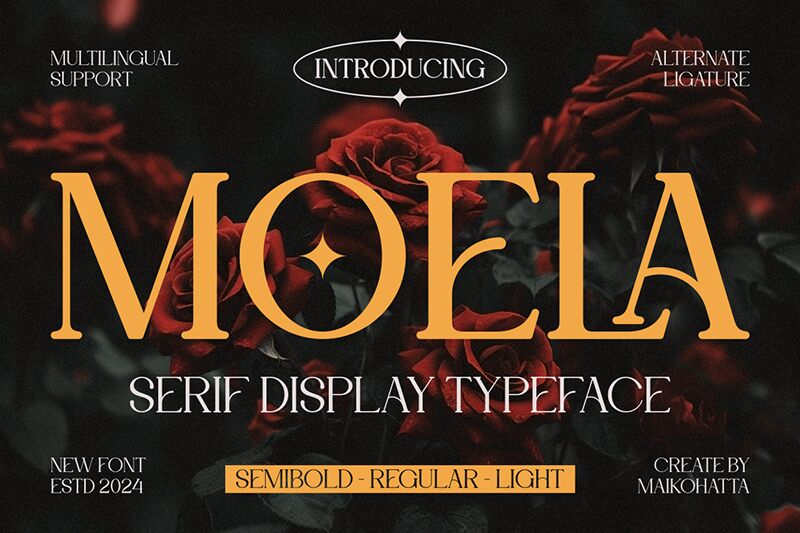
MOELA
Moela font is a beautiful serif font from Gilang Ternadho, one that brings a classic feel all too commanding for its audience. It possesses an elegant, vintage-inspired style with an aesthetic detailing and a refined tone for its letters. Its formal nature never goes out of fashion as Moela holds the uniqueness it’s known for.
Moela is a free serif font that looks exceptional on brochures or magazines, or even on portfolios of skillful artists. Think about using it for storytelling whether on books and printed novels or in blogs and websites. Invitations can also benefit from this lovely classic typeface in its various weights and styles.